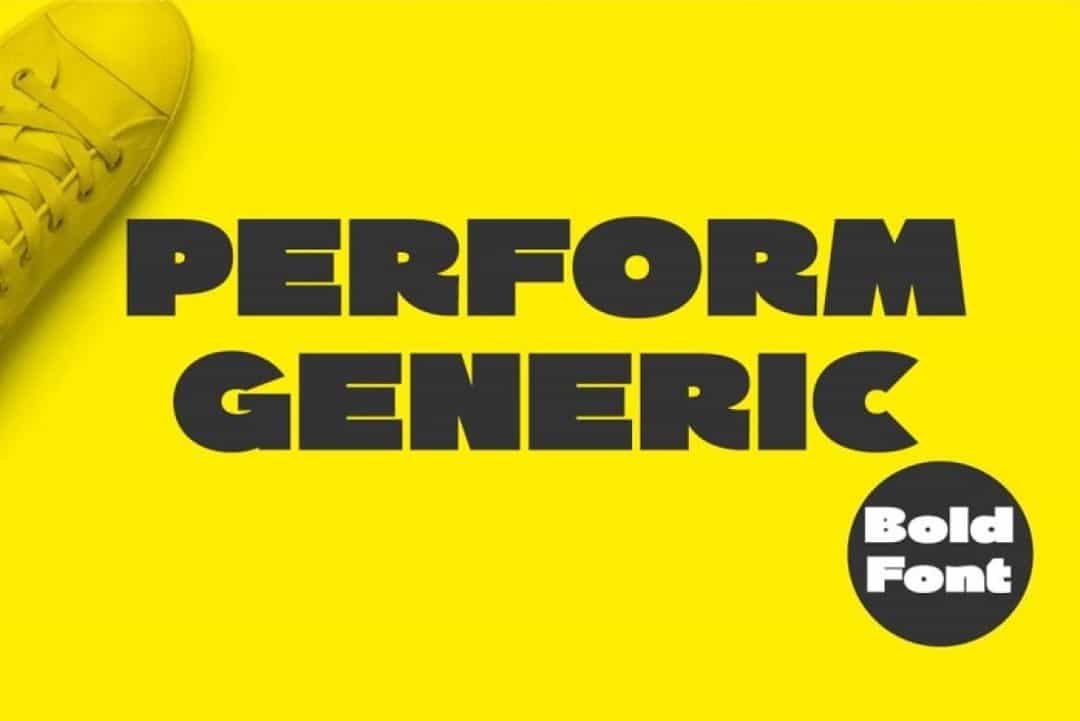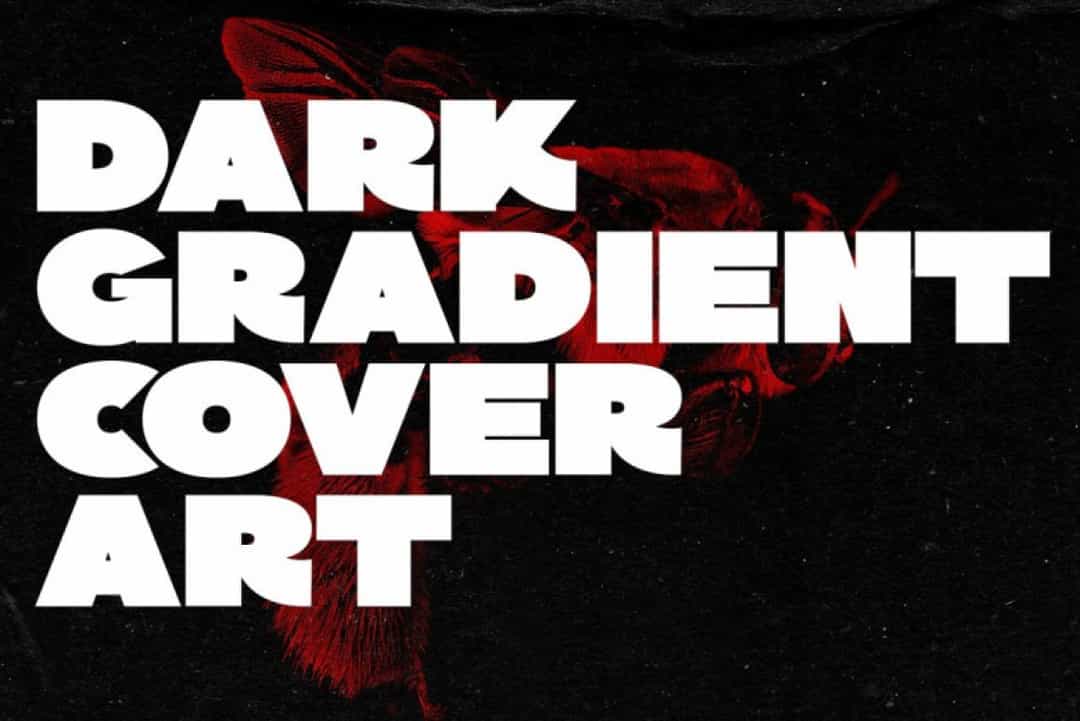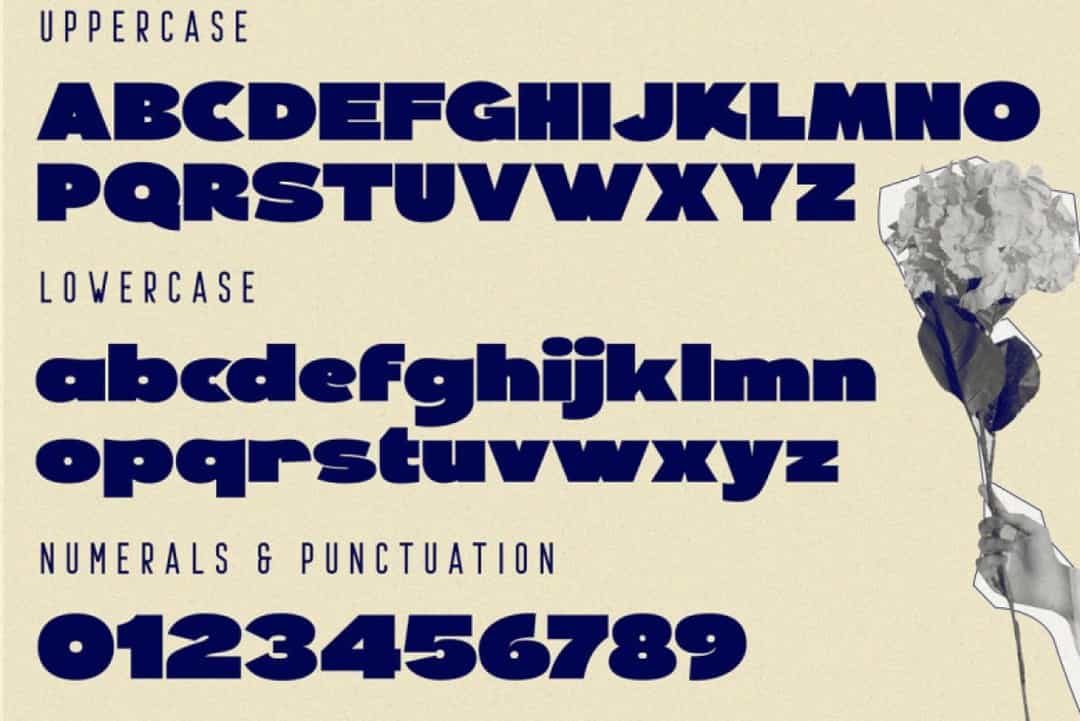
Perform Generic Sans Serif Font was designed to maximize emotional and visual impact. This bold sans serif typeface features both lowercase and uppercase letters for headlines, making this typeface contemporary when combined with striking designs or colors.